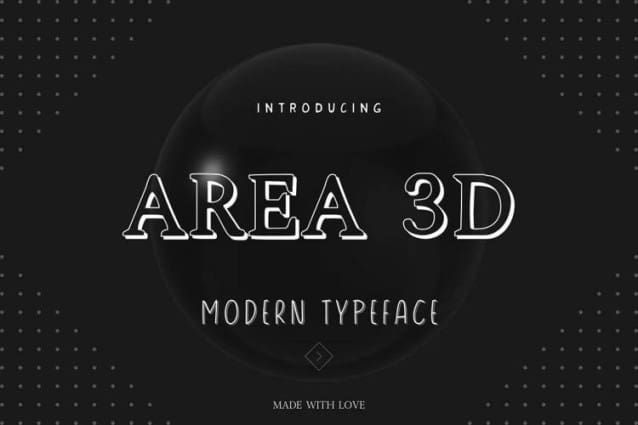
AREA 3D FONT
AREA 3D Font – Display Typeface is an artsy, playful, and smooth 3D font suitable for any design, especially for young people. It brings a playful and energetic touch to any creation.